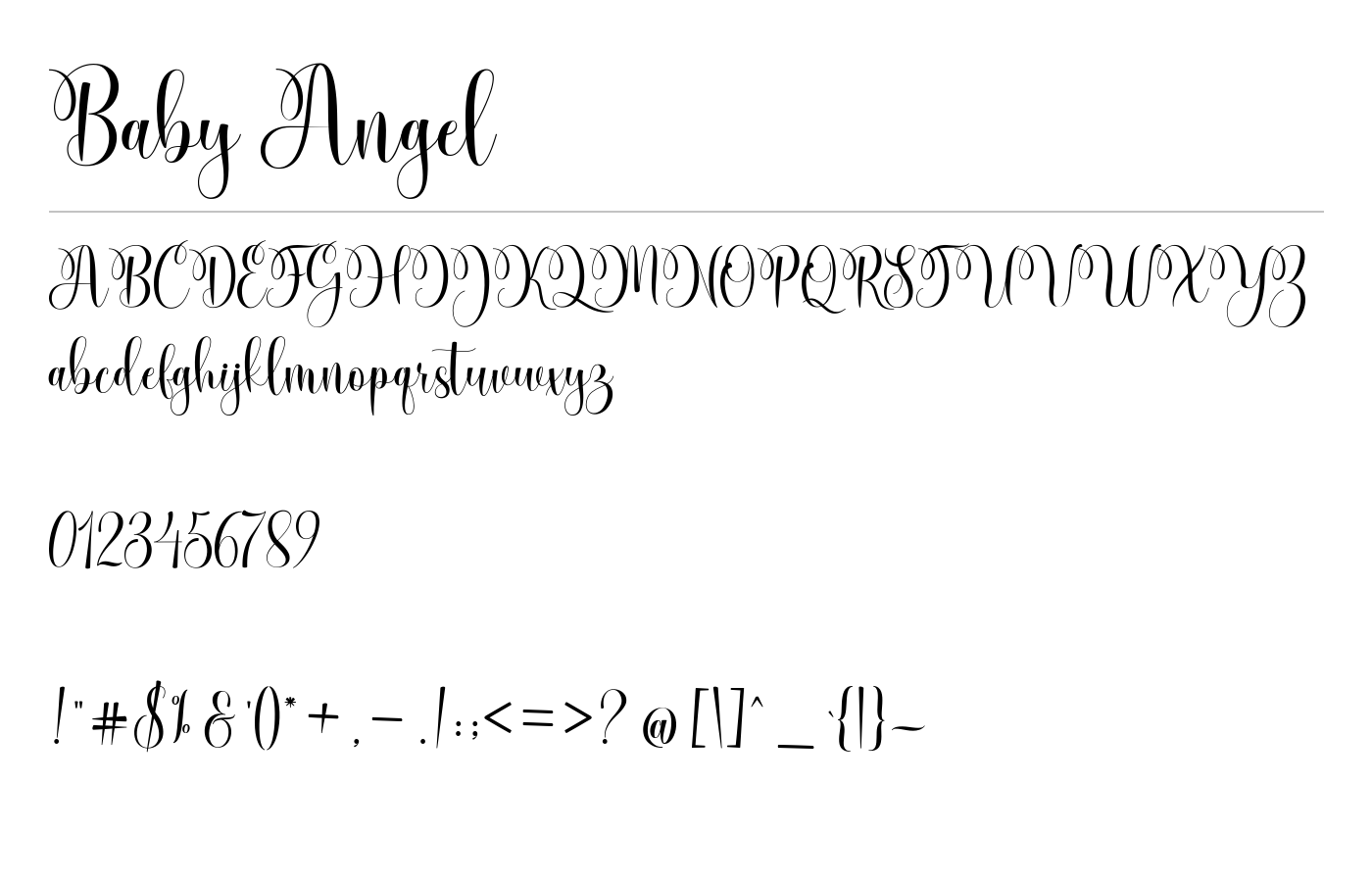
Baby Angel is an elegant, modern script font with a graceful and delicate feel, characterized by tall, slender letterforms and intricate, flowing swashes. Its fine stroke contrast and stylish curls lend a sophisticated and romantic personality, making it ideal for invitations, branding, and decorative headlines where a touch of charm and femininity is desired. This font works beautifully for fashion, wedding, and luxury projects that seek a refined yet playful aesthetic.
Baby Angel Font
About Baby Angel Font
| Font family | Baby Angel Font |
| Designer | REKA SAFRIANI |